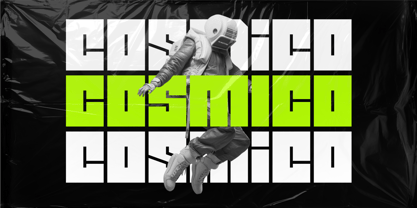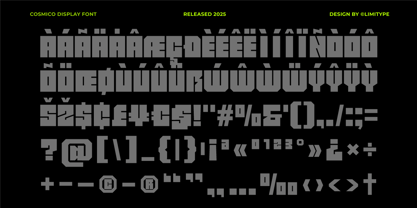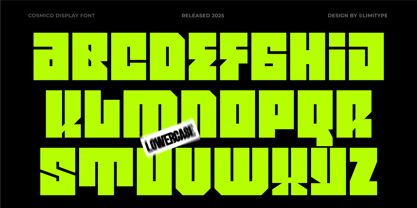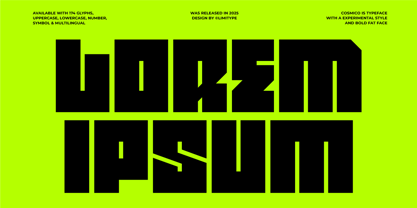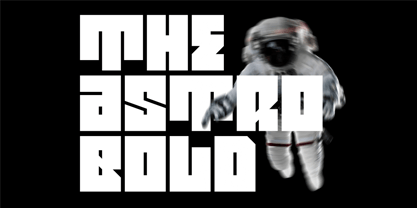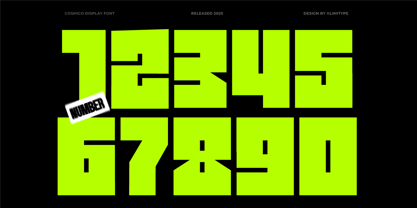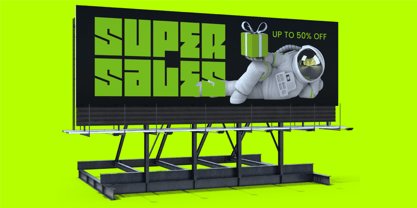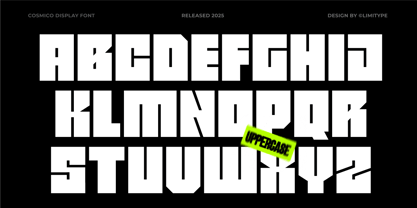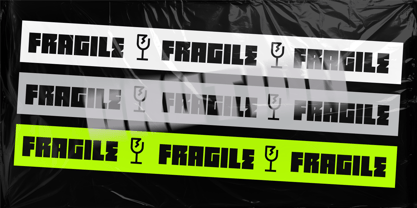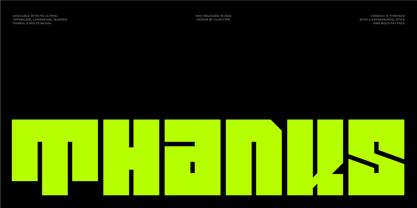
Cosmico
by limitype
The Cosmico Font Family was designed by Muhammad Muammar, Furqan Sudirman and published by limitype. Cosmico contains 1 styles.
Cosmico is a bold modern font with a sharp and strong character. Designed to stand out and look professional, it’s suitable for branding, headlines, posters, and digital designs that need a strong, modern, and futuristic feel.
Cosmico available with:
- Uppercase
- Lowercase
- Number
- Symbol
- Multilingual